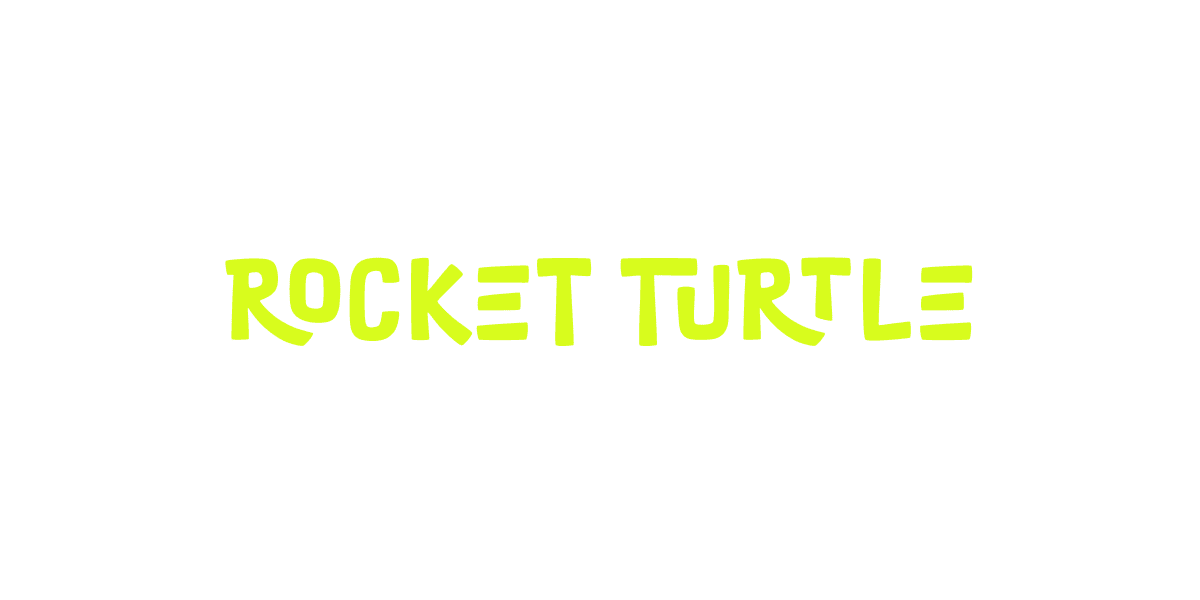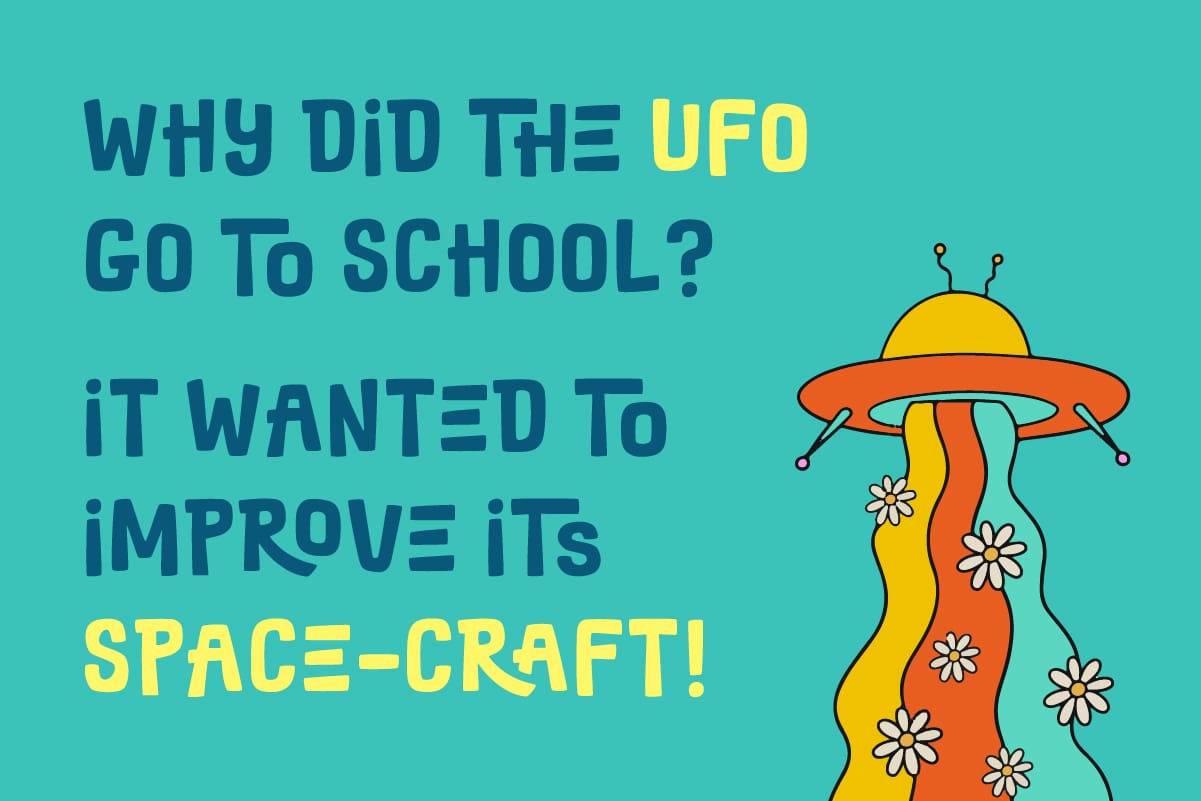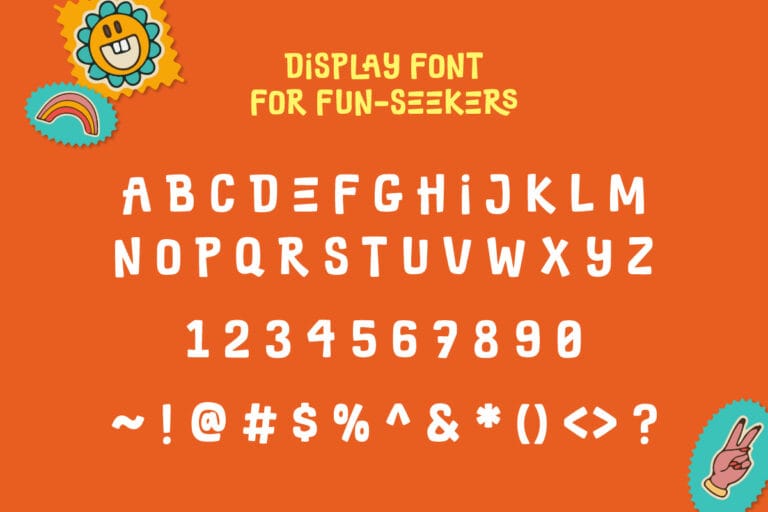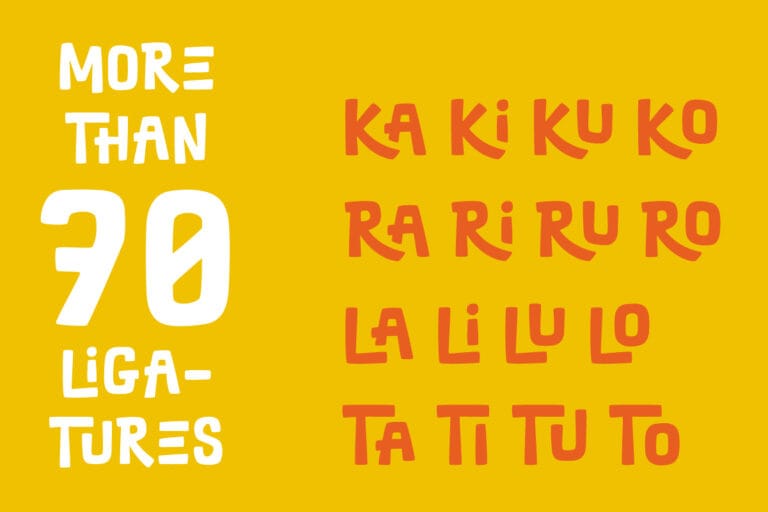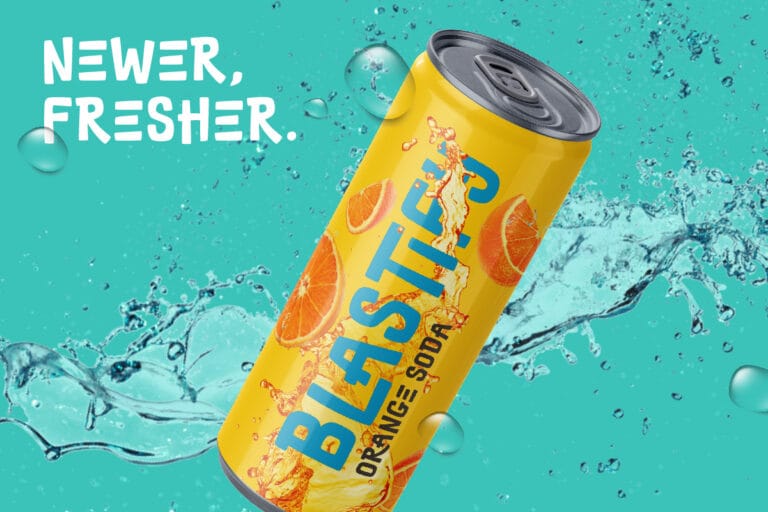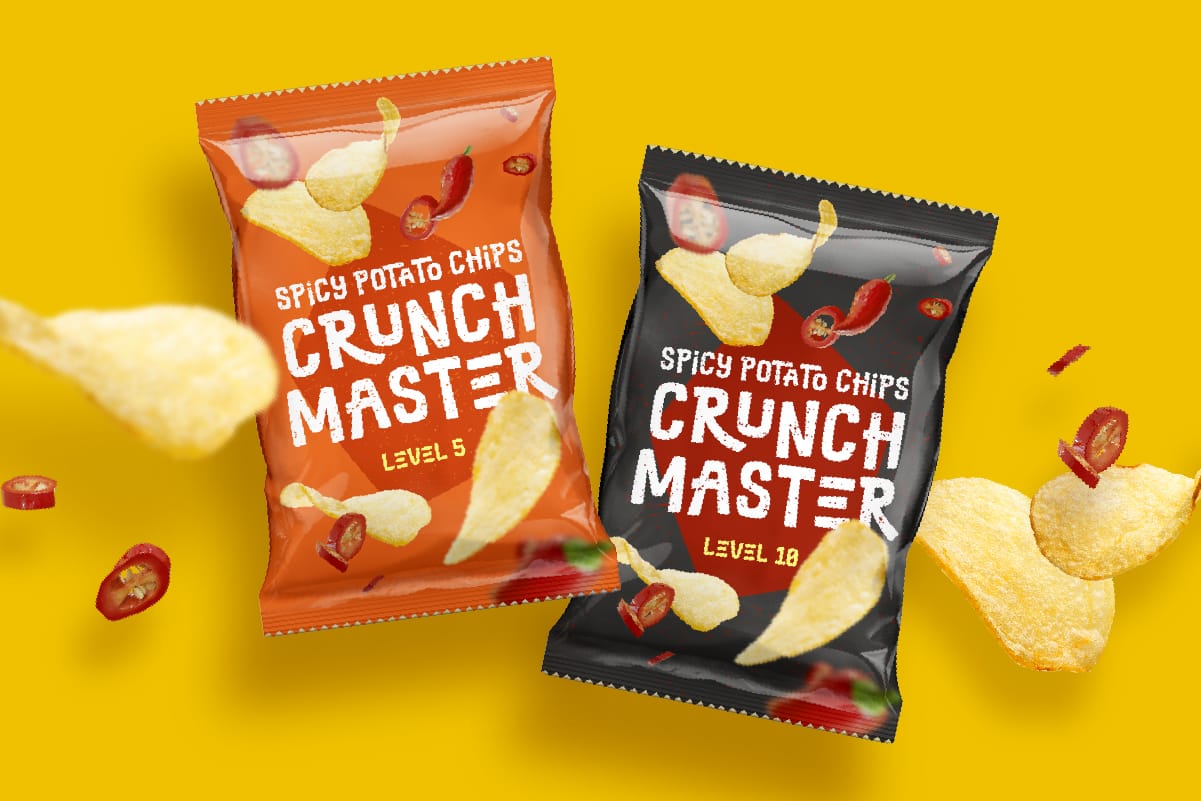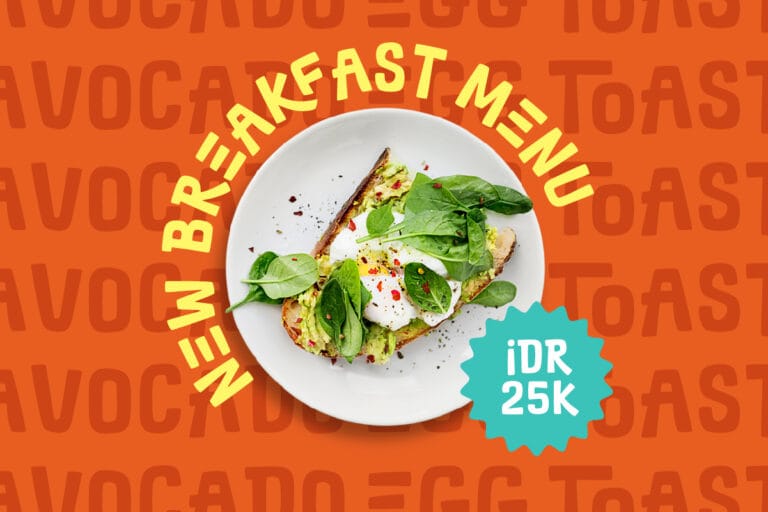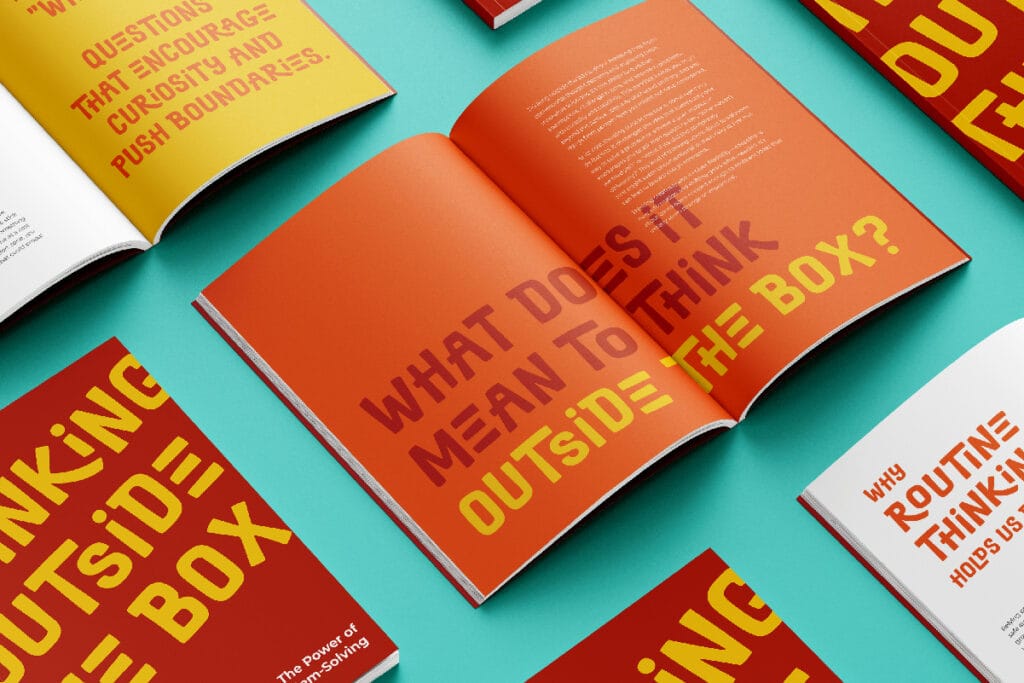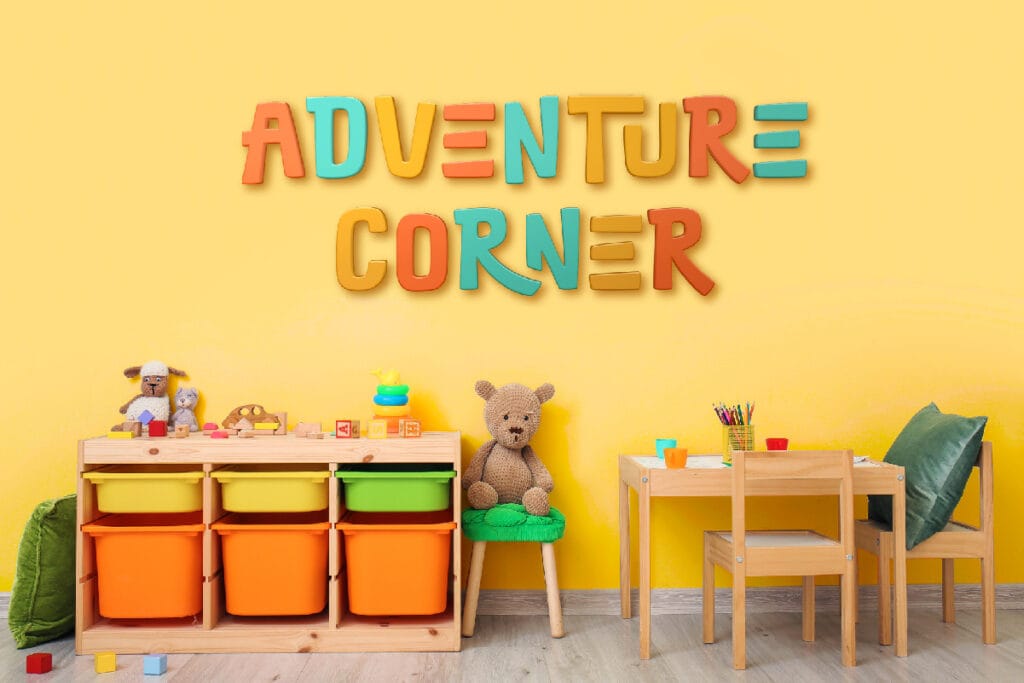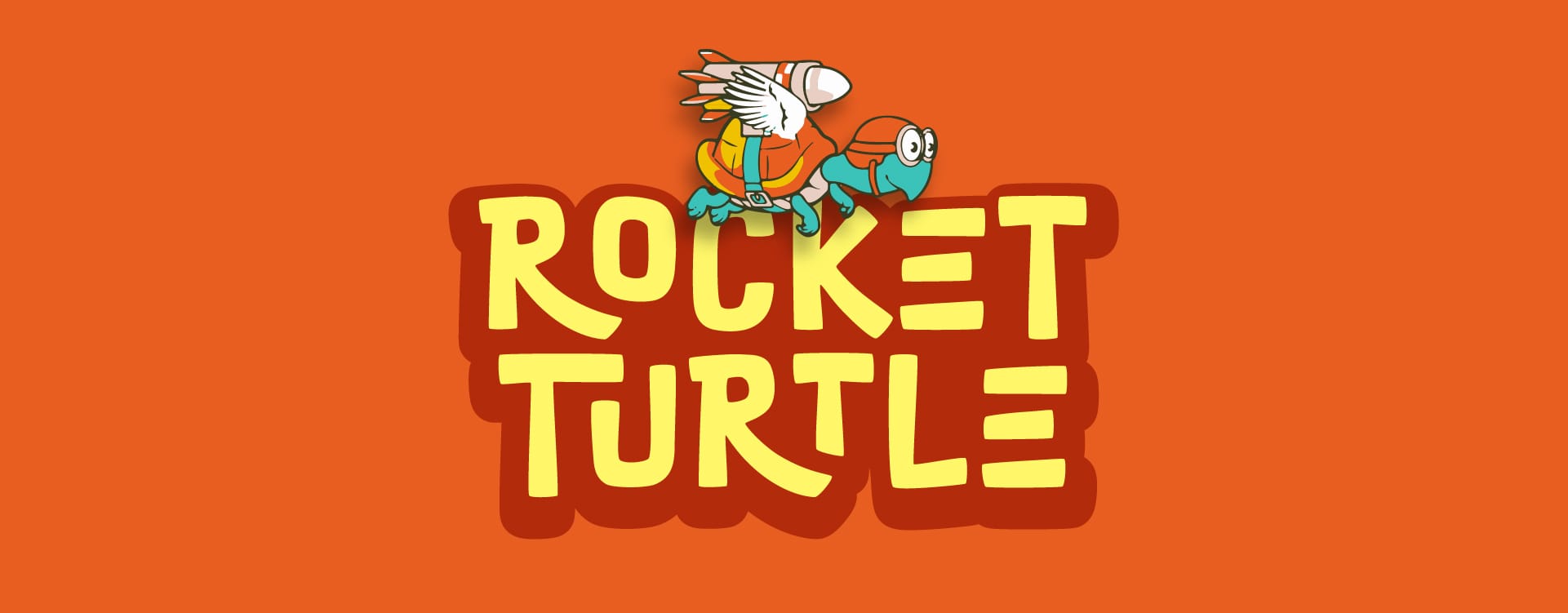
Rocket Turtle is a fun, dynamic, and funky display font. Each character features a touch of playful asymmetry and is complemented by over 70 unique ligatures, making this font the perfect choice for adding a festive and energetic vibe to your project.
With the joyful impression that it carries, Rocket Turtle font will work best when implemented in design projects that’s aiming to showcase a bold and exhilarating personality. Designs that wanted to be different, break out of the norm, and standout from the crowd. This font will help elevate your design to grab the attention of your audience, especially those of a younger age.
LIGATURE